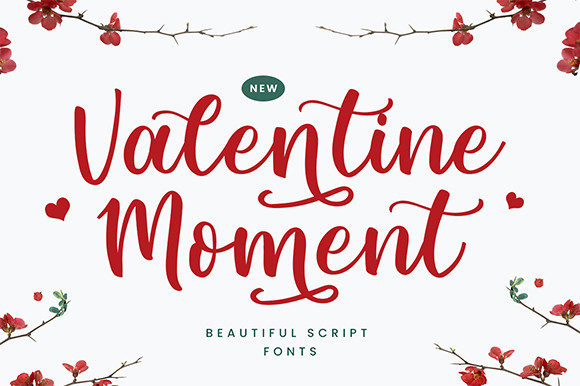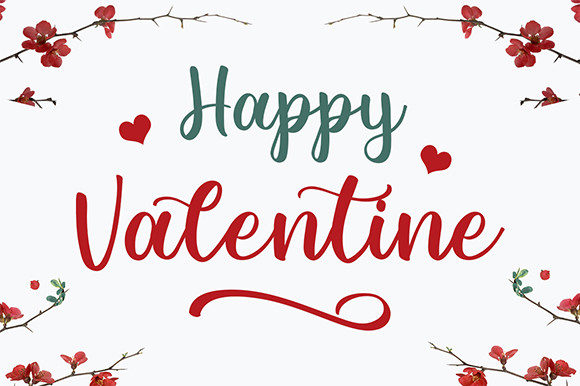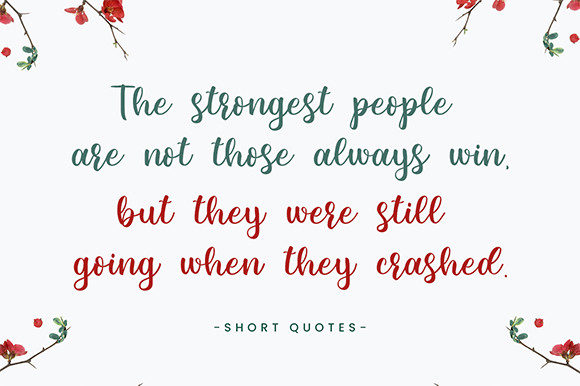
Valentine Moment is a sweet and cursive handwritten font. This gentle font will look gorgeous on a variety of design ideas. It will add a joyful and romantic touch to each of your projects! Valentine Moment is PUA encoded which means you can access all of the glyphs and swashes with ease!